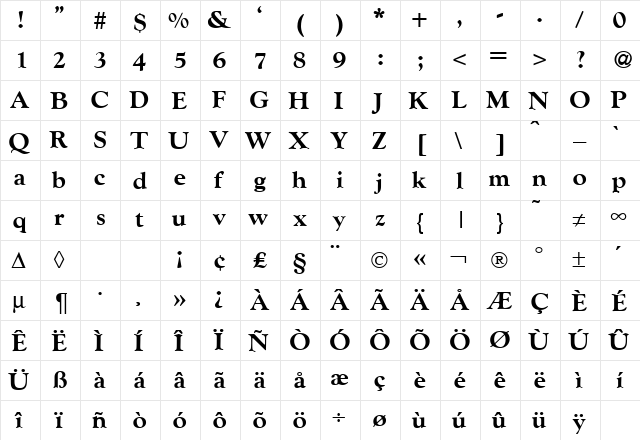
GoudyOldStyleTwoExtrabold Regular
Design Context for GoudyOldStyleTwoExtrabold Typeface
GoudyOldStyleTwoExtrabold brings classic typographic sensibility to the table — its serifs and measured letterforms reflect centuries of print heritage. The heavy weight commands attention and anchors typographic hierarchies.
Pro Tip: Set GoudyOldStyleTwoExtrabold with slightly loose tracking in headlines to let each letterform's detail read clearly at display sizes.